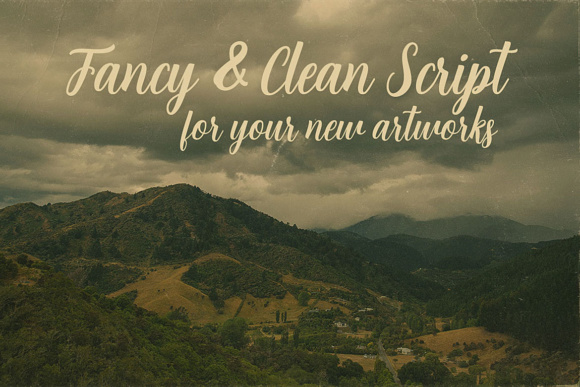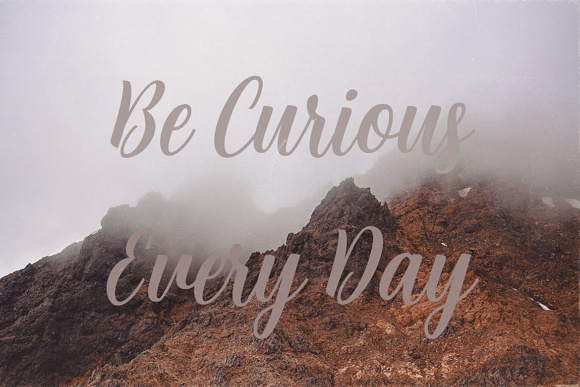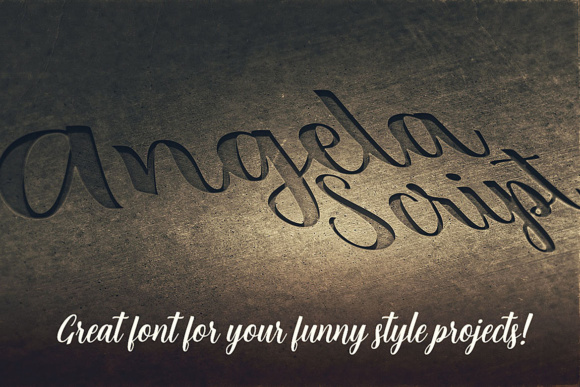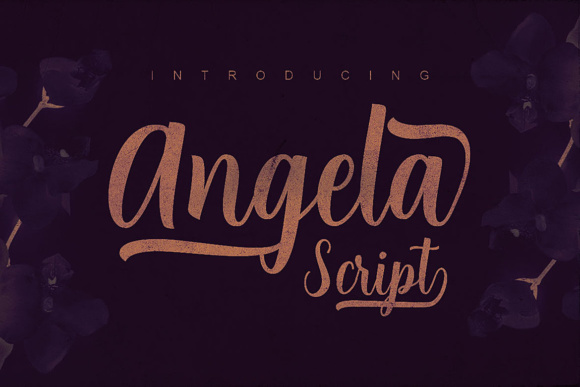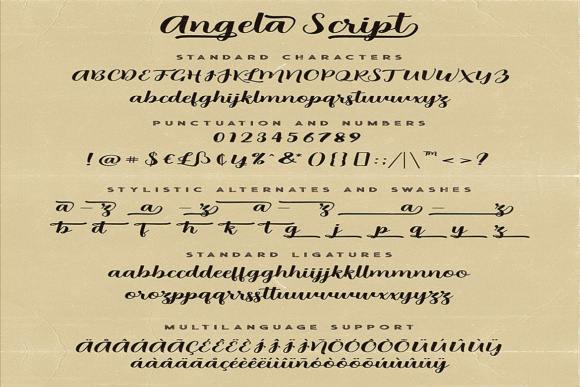
Angela Font
About Angela Font
Angela is a clean and fancy styled script font, perfect for a wide range of projects that need a fancy feel. This is a great script with tons of stylistic alternates so you can make unique looking designs.